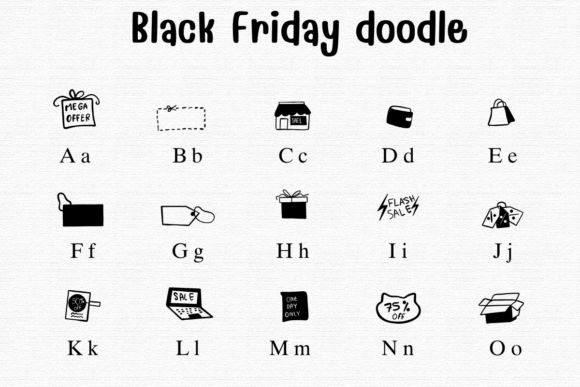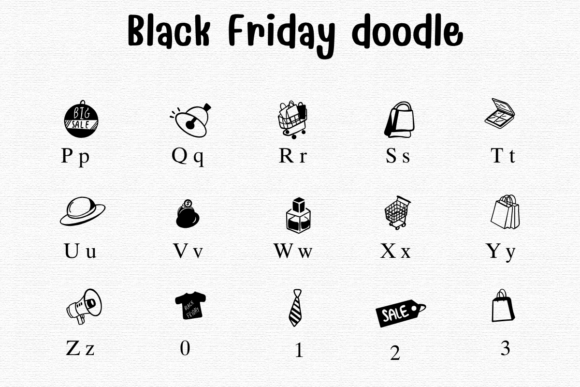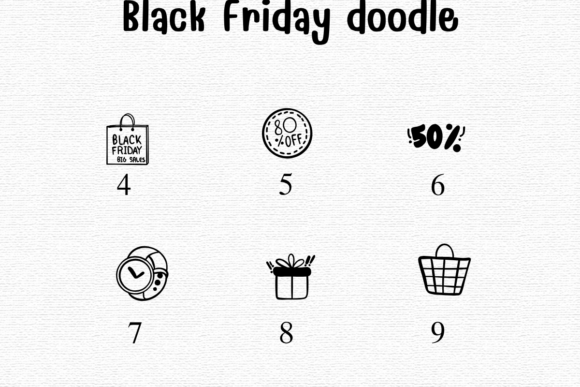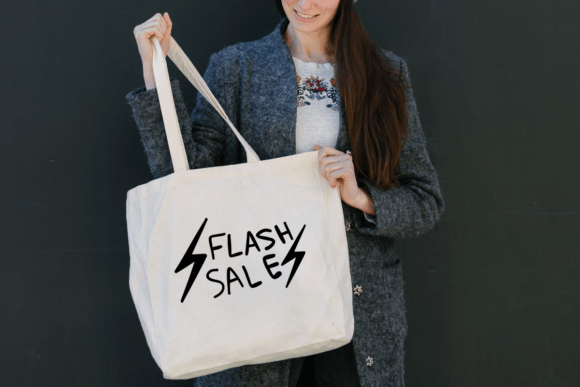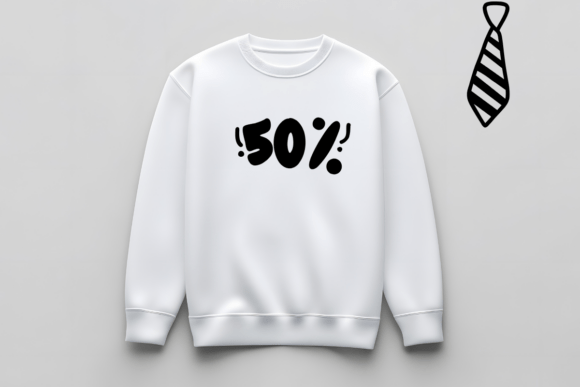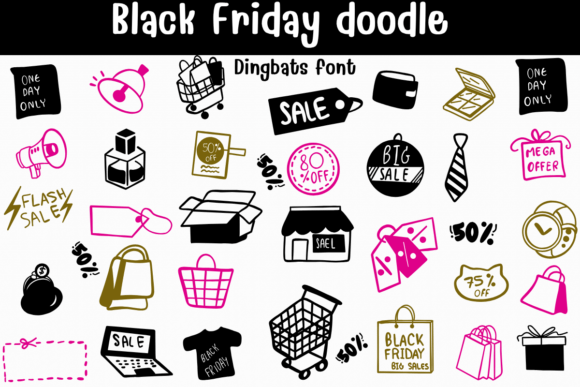
Unlock the Magic of Black Friday Doodle Font
Ah, Black Friday – the ultimate shopping extravaganza! As designers, we’ve all been there: frantically working on a project, trying to meet a deadline, and struggling to find the perfect font to capture the essence of this crazy shopping season. I still remember the time I was working on a Black Friday campaign for a client, and I just couldn’t find a font that embodied the playful, chaotic spirit of the holiday. That was until I stumbled upon the Black Friday Doodle Font. ✨
What’s the Big Deal About Black Friday Doodle Font?
Black Friday Doodle Font is a hand-drawn dingbats font that’s packed with over 60 unique vector-style illustrations, specially crafted for sales season creatives. Each glyph features quirky, fun, and sketchy icons that embody the chaos and charm of Black Friday shopping – from sale tags, shopping carts, and flash sale signs to discount badges, price labels, and gift boxes.
Honest Review: The Good, the Bad, and the Quirky
• ✨ Playful and engaging visuals: This font is perfect for creating promotional assets that grab attention and drive sales.
• ✅ Ease of use: The font is fully mapped to the keyboard (A-Z, a-z, 0-9), making it super easy to use in any design software.
• 🔥 Versatility: From social media promotions to flyers, posters, and email campaigns, this font is perfect for a wide range of design projects.
⚠️ While the font is incredibly versatile, some users might find that the doodle-style illustrations can be a bit too playful for certain design projects. For example, if you’re working on a more corporate or minimalist design, this font might not be the best fit.
🤔 Additionally, some users might find that the font can be a bit overwhelming, especially if you’re using multiple glyphs in a single design. However, with a little creativity and experimentation, you can create stunning designs that showcase the unique charm of this font.
The Story Behind Black Friday Doodle Font
The Black Friday Doodle Font was created by a team of designers who wanted to capture the essence of Black Friday shopping. With its playful and doodle-style illustrations, this font is perfect for creating promotional assets that grab attention and drive sales.